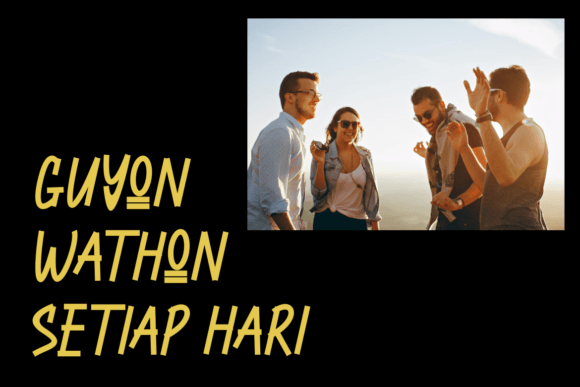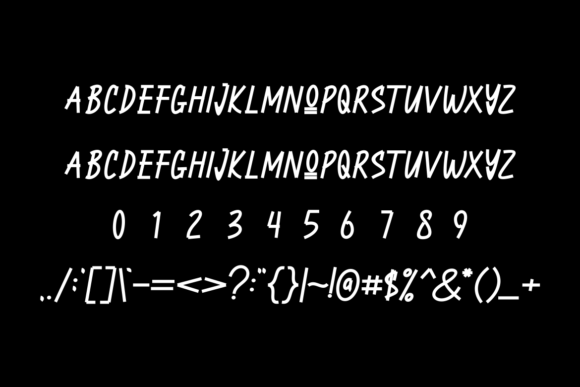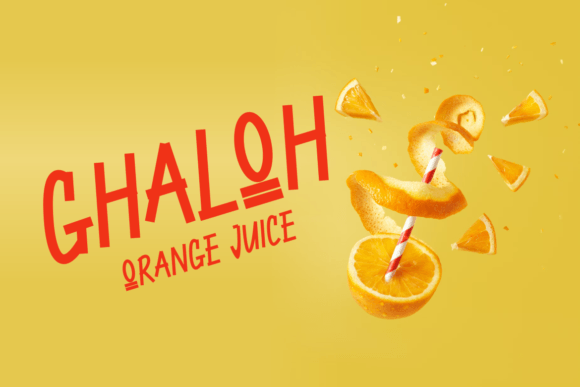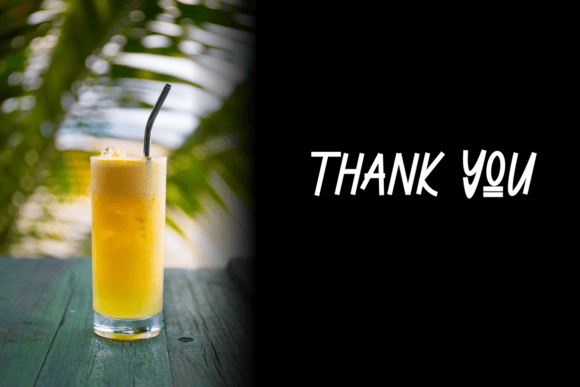
Introduction to Ononex Brush Font
Ononex Brush is a straightforward brush font with a hand-drawn feel.
It has a casual and artistic look, making it great for adding a personal touch to your designs Perfect for creating unique logos, posters, and social media graphics.
Key Features of Ononex Brush Font
Why Choose Ononex Brush Font?